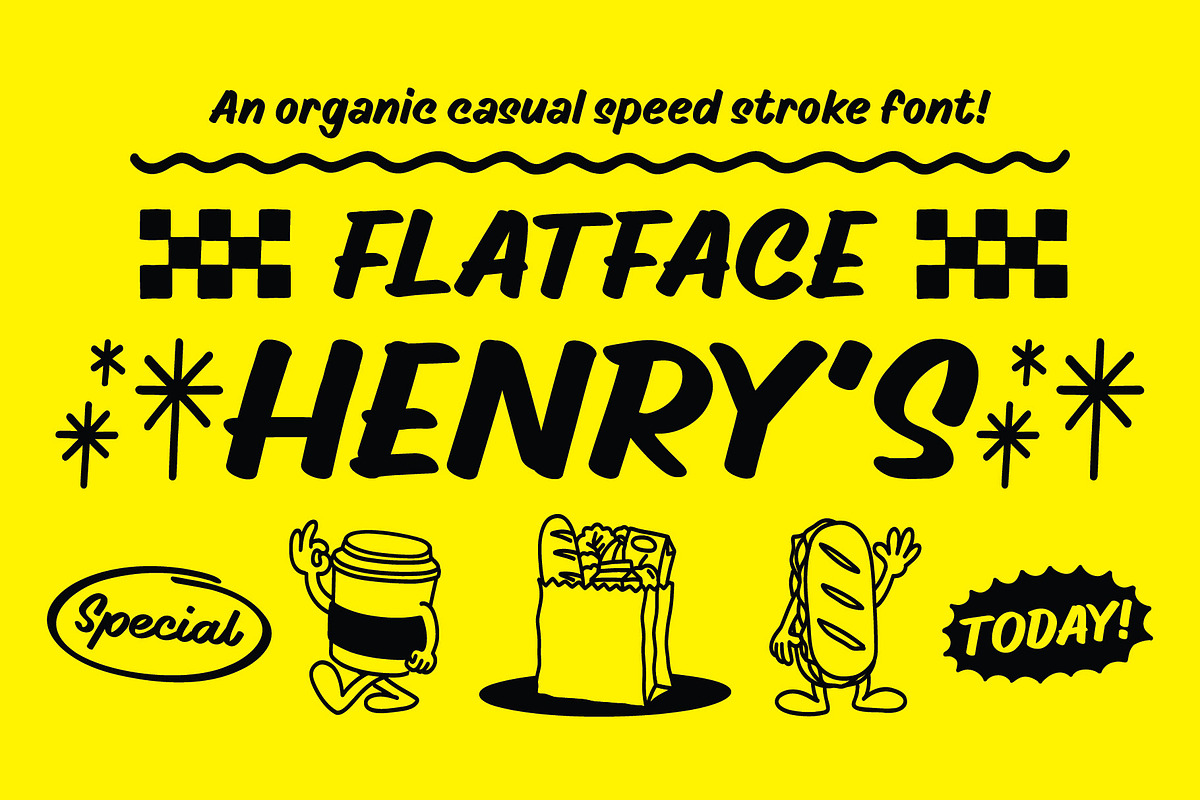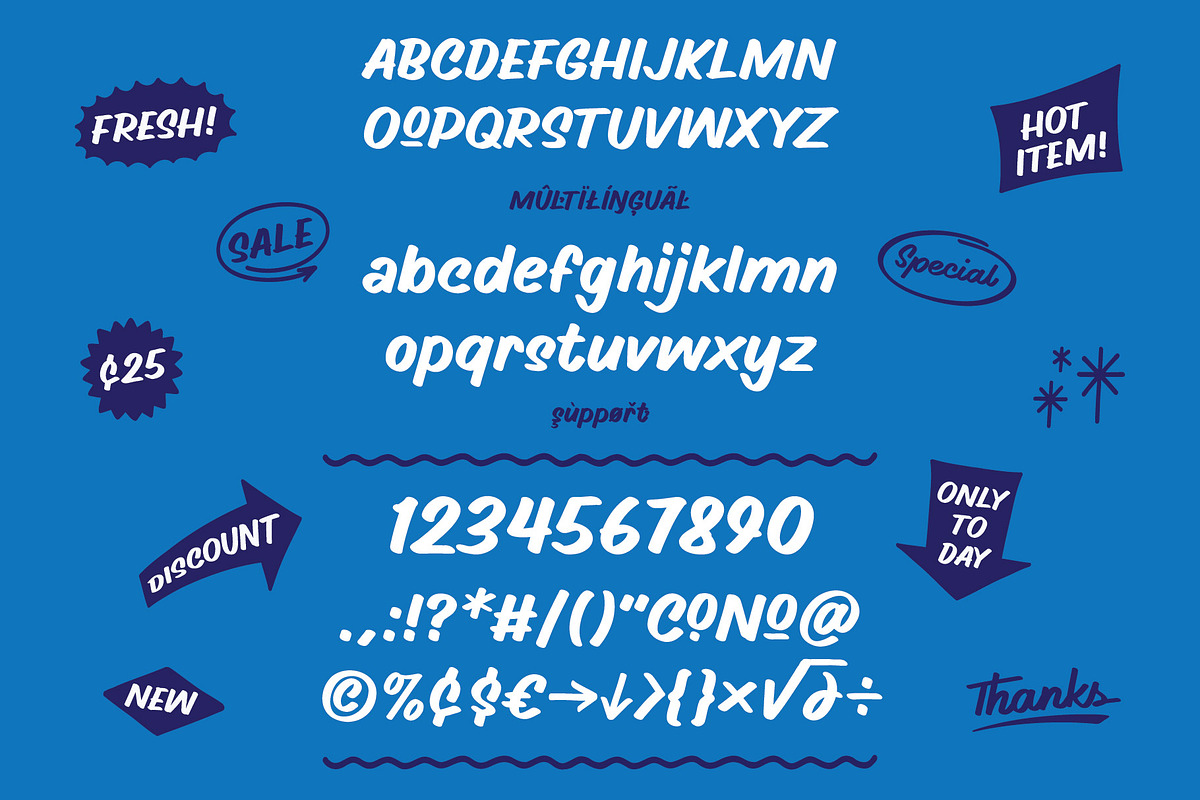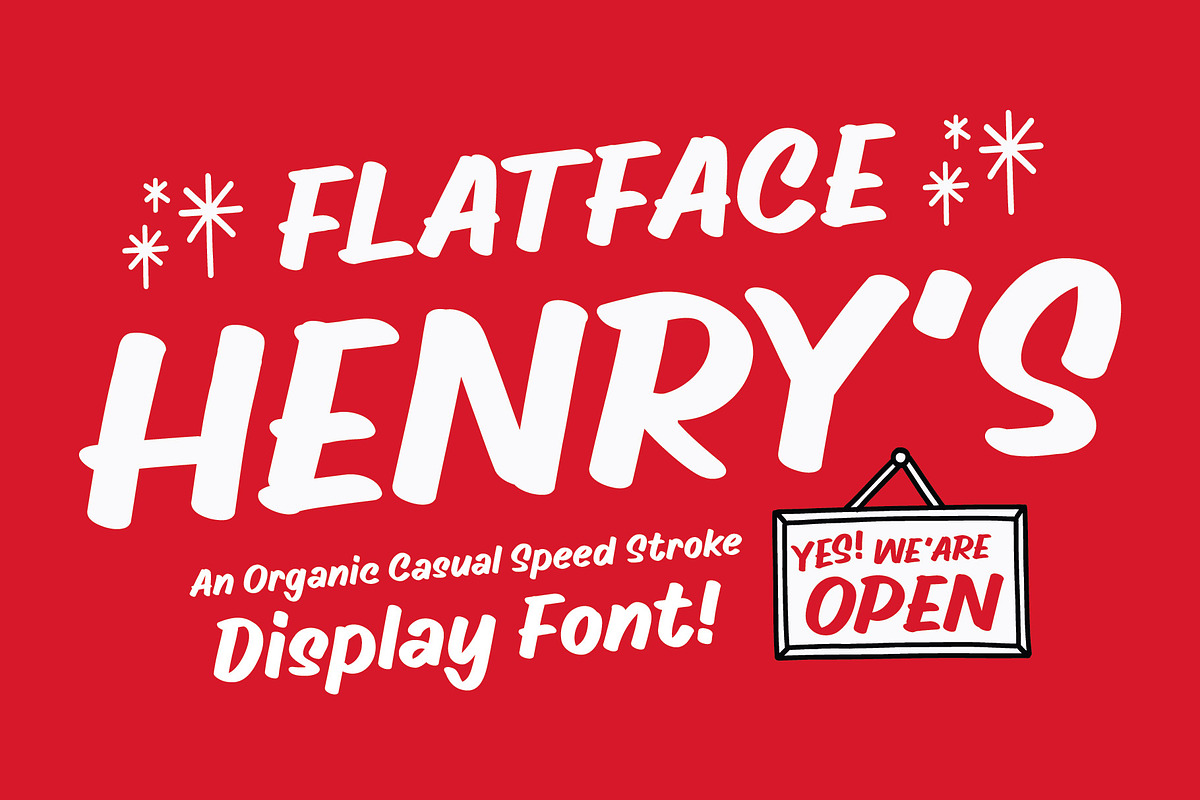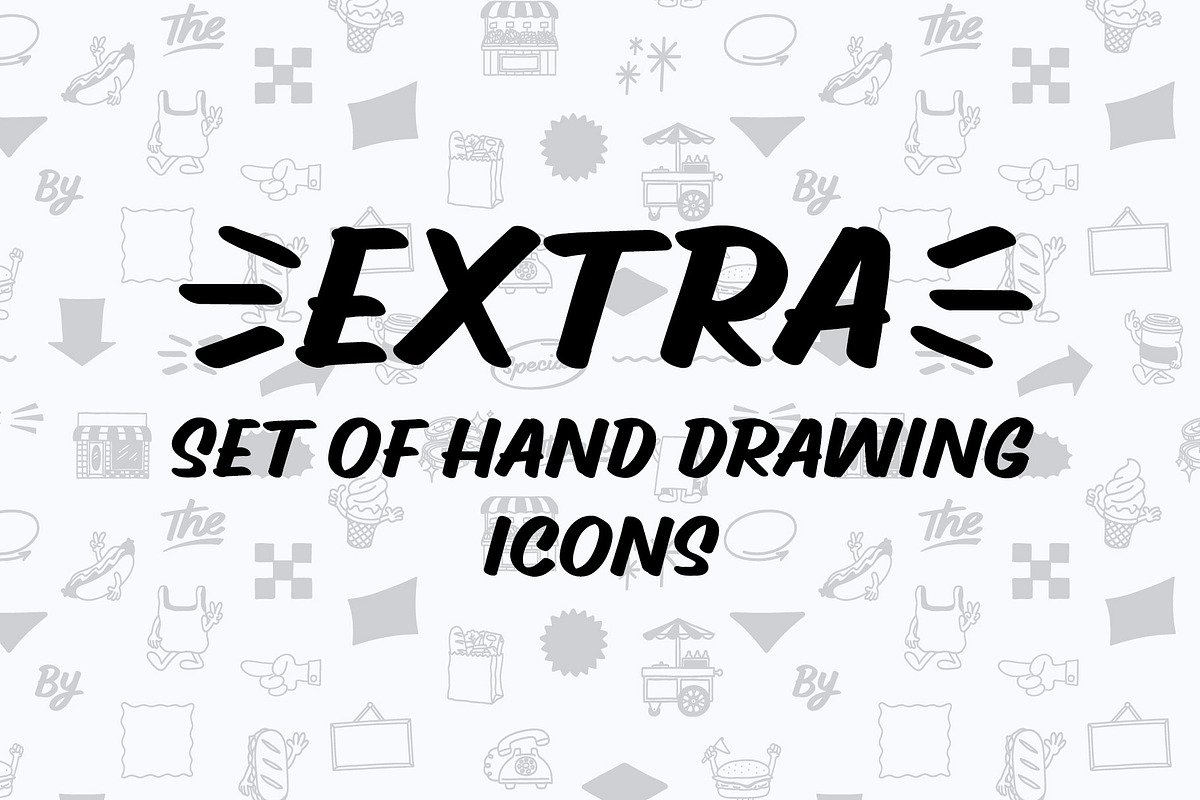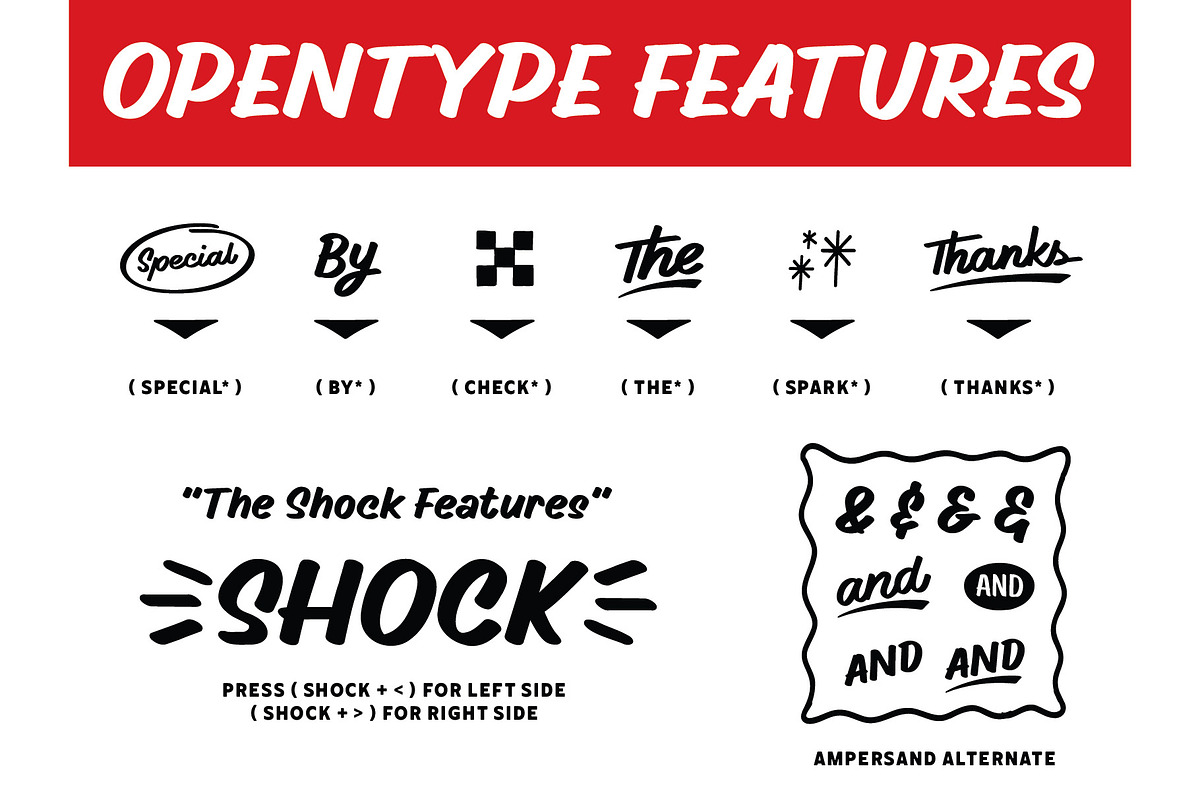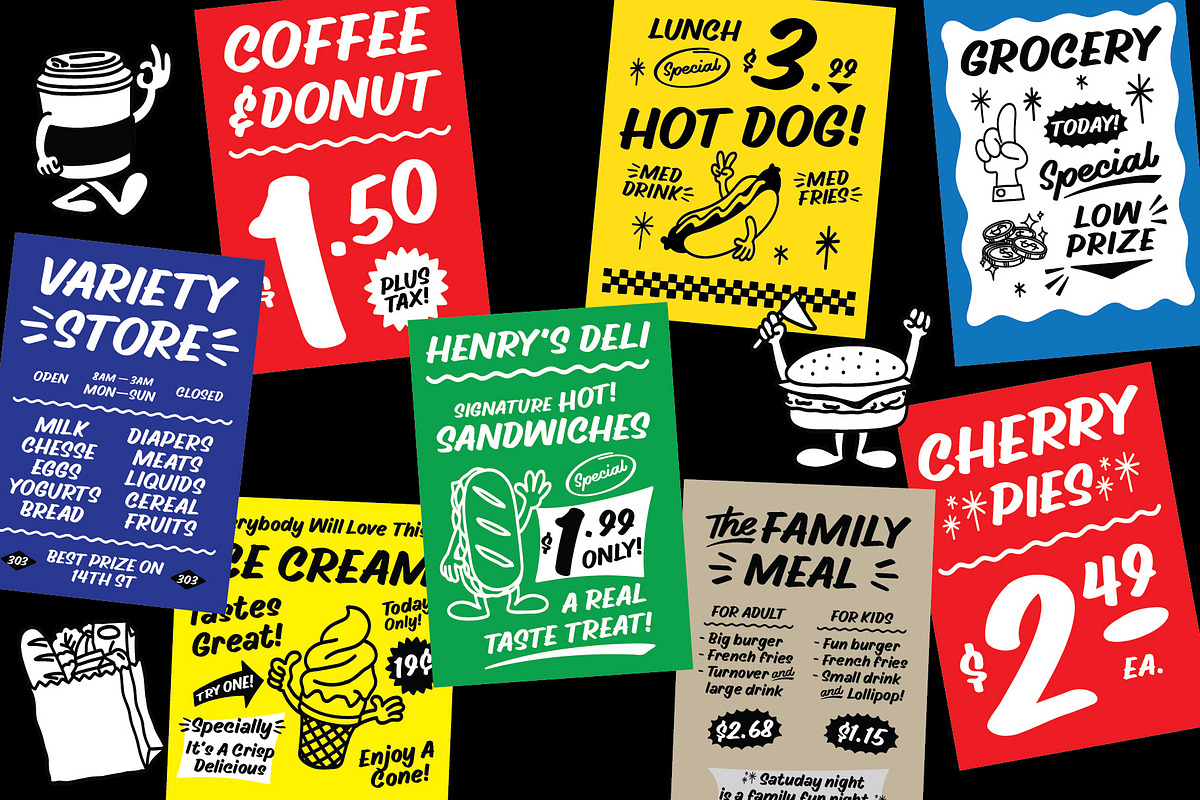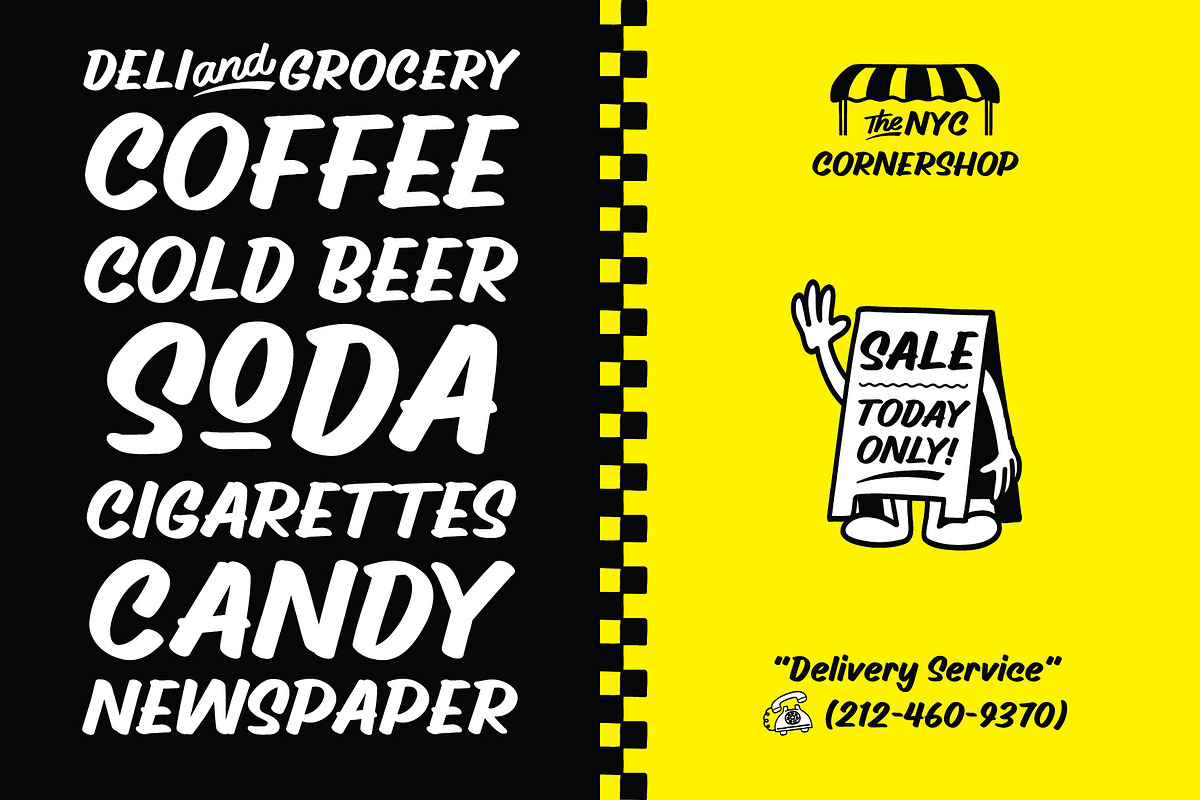
Flatface Henry's
Flatface Henry’s is a san serif casual speed stroke display font who is inspired by the 60's/70's Deli & grocery sign store ads with one brush stroke style.
The typeface is coming with opentype feature like ligature and stylistic as well as multi-lingual support.
Opentype Features :
- Stylistic Set
- Catchword